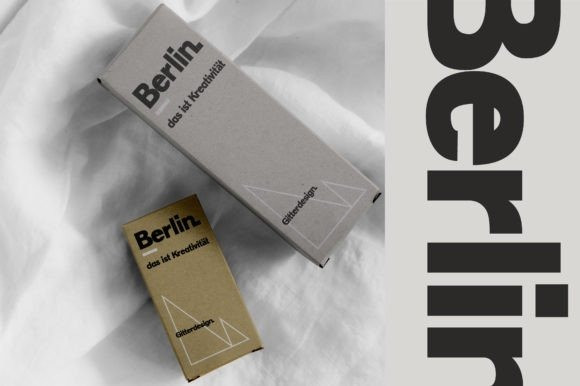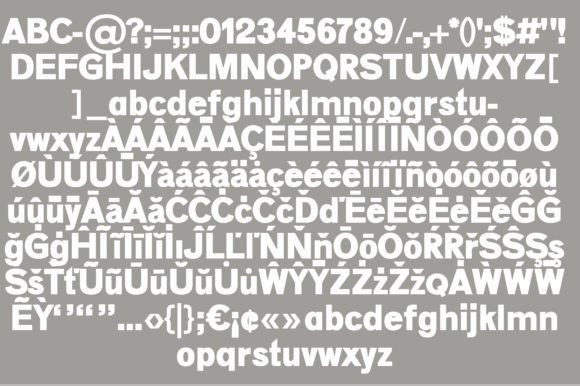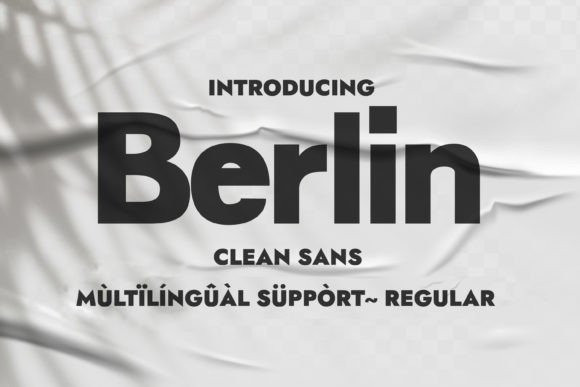
BERLIN SANS SERIF FONT
Berlin Sans Serif Font, as the name suggests, is a clean, minimalist, geometric sans serif typeface. It is inspired by the design principles of Deutsche, Switzerland. It works great in contexts such as perfume labels, cosmetics, magazine covers, posters, flyers, social media posts, and fashion. Use it in your work and you may find it quickly becoming one of your favorite fonts.